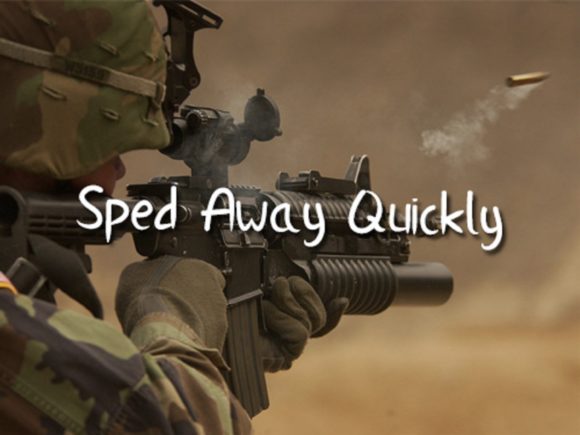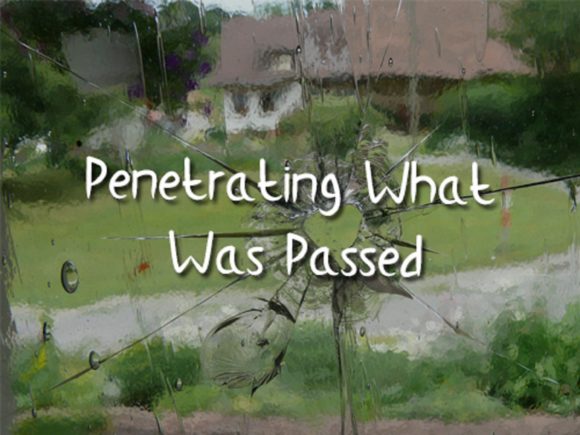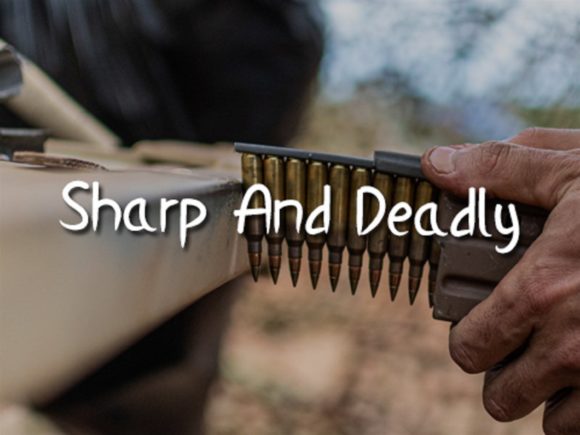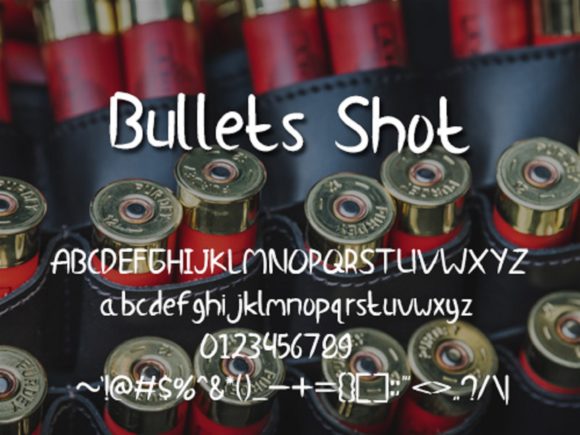
Bullets Shot Font: Adding a Lovely Touch to Your Designs
Bullets Shot is a cool, chic and interesting handwritten font that has been making waves in the design community. Whether you use it for cartoon related designs, children games or just any creation that requires a lovely touch, this font will be an amazing choice. In this article, we’ll dive into the world of Bullets Shot Font, exploring its features, uses, and benefits for designers and crafters.
What Makes Bullets Shot Font So Special?
Bullets Shot Font is a unique and stylish handwritten font that stands out from the crowd. Its cool and chic design makes it perfect for a wide range of projects, from playful cartoon designs to more sophisticated creations. The font’s interesting and quirky feel adds a touch of personality to any design, making it a great choice for designers who want to add a bit of whimsy to their work.
Features of Bullets Shot Font
Bullets Shot Font comes with a range of features that make it a versatile and practical choice for designers. Some of its key features include:
- Handwritten style: Bullets Shot Font has a beautiful, handwritten style that adds a personal touch to any design.
- Cool and chic design: The font’s cool and chic design makes it perfect for a wide range of projects, from playful to sophisticated.
- Quirky feel: The font’s quirky feel adds a touch of personality to any design, making it a great choice for designers who want to add a bit of whimsy to their work.
- Easy to read: Despite its playful design, Bullets Shot Font is easy to read, making it a great choice for body text and headings.
Uses of Bullets Shot Font
Bullets Shot Font is a versatile font that can be used for a wide range of projects, including:
- Cartoon related designs: The font’s playful and quirky feel makes it perfect for cartoon related designs, such as character designs, comics, and animations.
- Children games: Bullets Shot Font is a great choice for children games, adding a fun and playful touch to game titles, menus, and other design elements.
- Branding and packaging: The font’s cool and chic design makes it a great choice for branding and packaging projects, adding a touch of personality to product labels and packaging.
- Digital marketing: Bullets Shot Font can be used in digital marketing campaigns, such as social media graphics, email marketing, and website designs.
Benefits of Using Bullets Shot Font
There are many benefits to using Bullets Shot Font in your designs, including:
- Unique and stylish design: Bullets Shot Font adds a unique and stylish touch to any design, setting it apart from more traditional fonts.
- Versatility: The font’s versatility makes it suitable for a wide range of projects, from playful to sophisticated.
- High-quality design: The font is designed to high-quality standards, ensuring that it looks great in any design.
Tips for Using Bullets Shot Font
Here are a few tips for using Bullets Shot Font in your designs:
- Use it sparingly: While Bullets Shot Font is a beautiful font, it can be overwhelming if used too much. Use it sparingly to add a touch of personality to your design.
- Pair it with other fonts: Bullets Shot Font can be paired with other fonts to create a unique and interesting design.
- Experiment with different sizes and colors: Experiment with different sizes and colors to find the perfect combination for your design.
Bullets Shot Font is a cool, chic and interesting handwritten font that is perfect for designers and crafters who want to add a lovely touch to their designs. With its unique and stylish design, versatility, and ease of use, it’s a great choice for a wide range of projects. Whether you’re working on a cartoon related design, children game, or branding project, Bullets Shot Font is sure to impress.